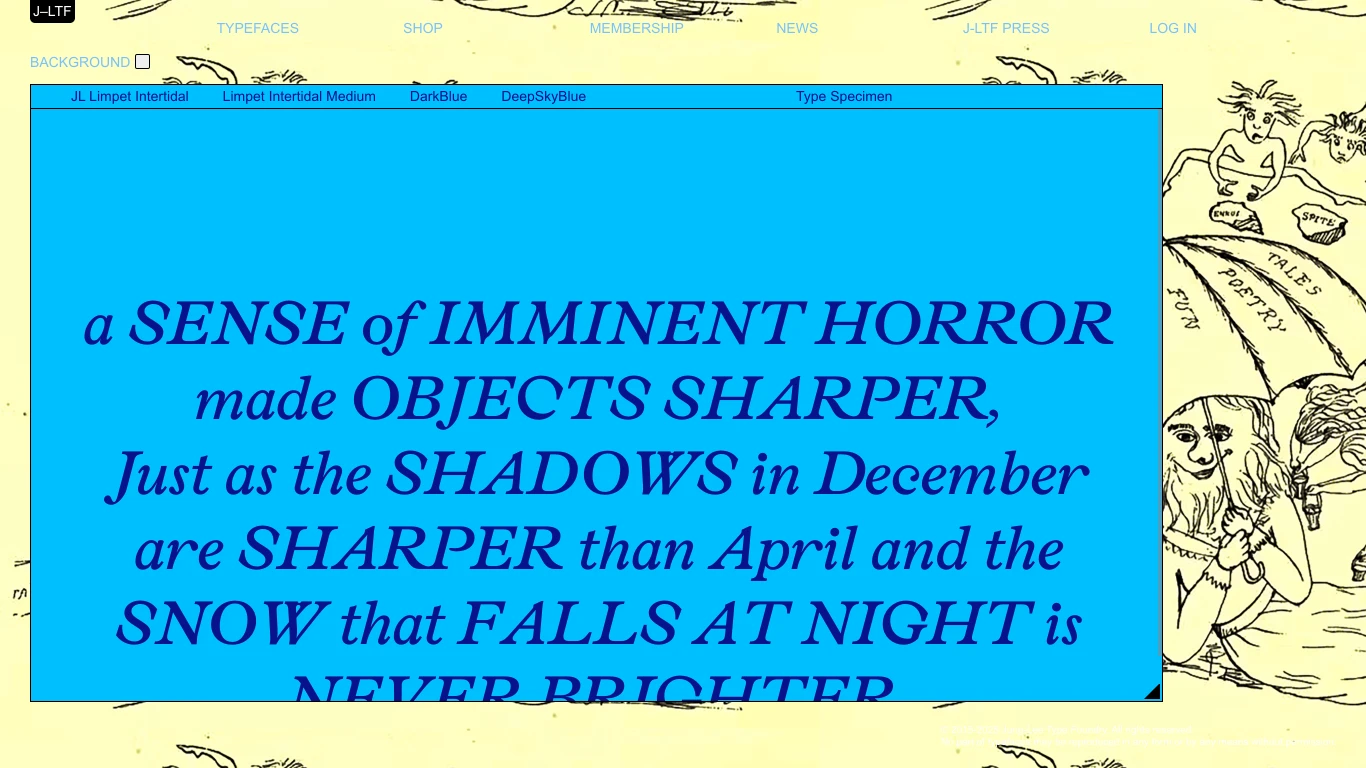
Jung-Lee Type Foundry
Netherlands
2015
​Jung-Lee Type Foundry (J-LTF) is an Amsterdam-based experimental type foundry founded in 2015 by graphic designer Jungmyung Lee. The foundry specializes in creating retail and custom typefaces, publishing endeavors, and autonomous works that explore the emotional and narrative aspects of letterforms.​ Notable typefaces include Jungka (2015), Pirelli (2018), Impact Nieuw (2016), and Joseleen (2018)—each exploring expressive, unconventional forms and often created in collaboration with artists like Karel Martens and Josse Pyl. The foundry publishes "Real-Time Realist," an experimental typography and art journal exploring human emotions through typographic forms.